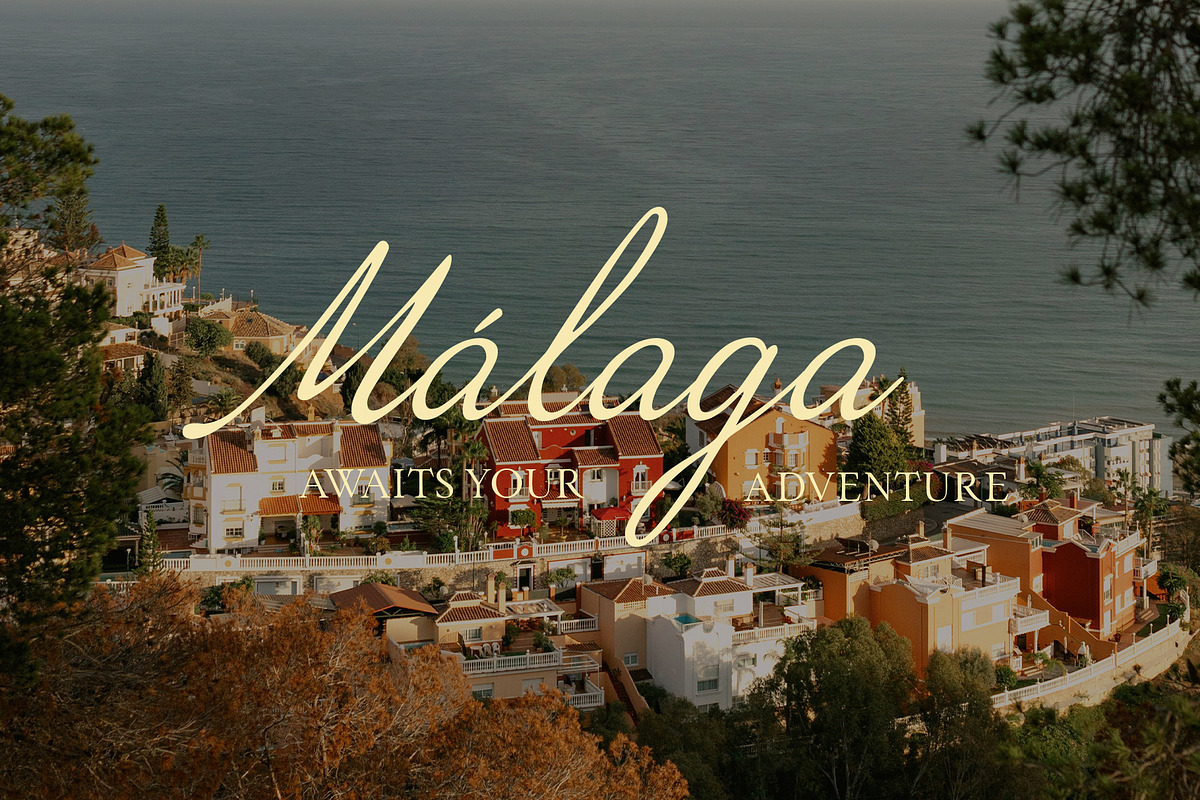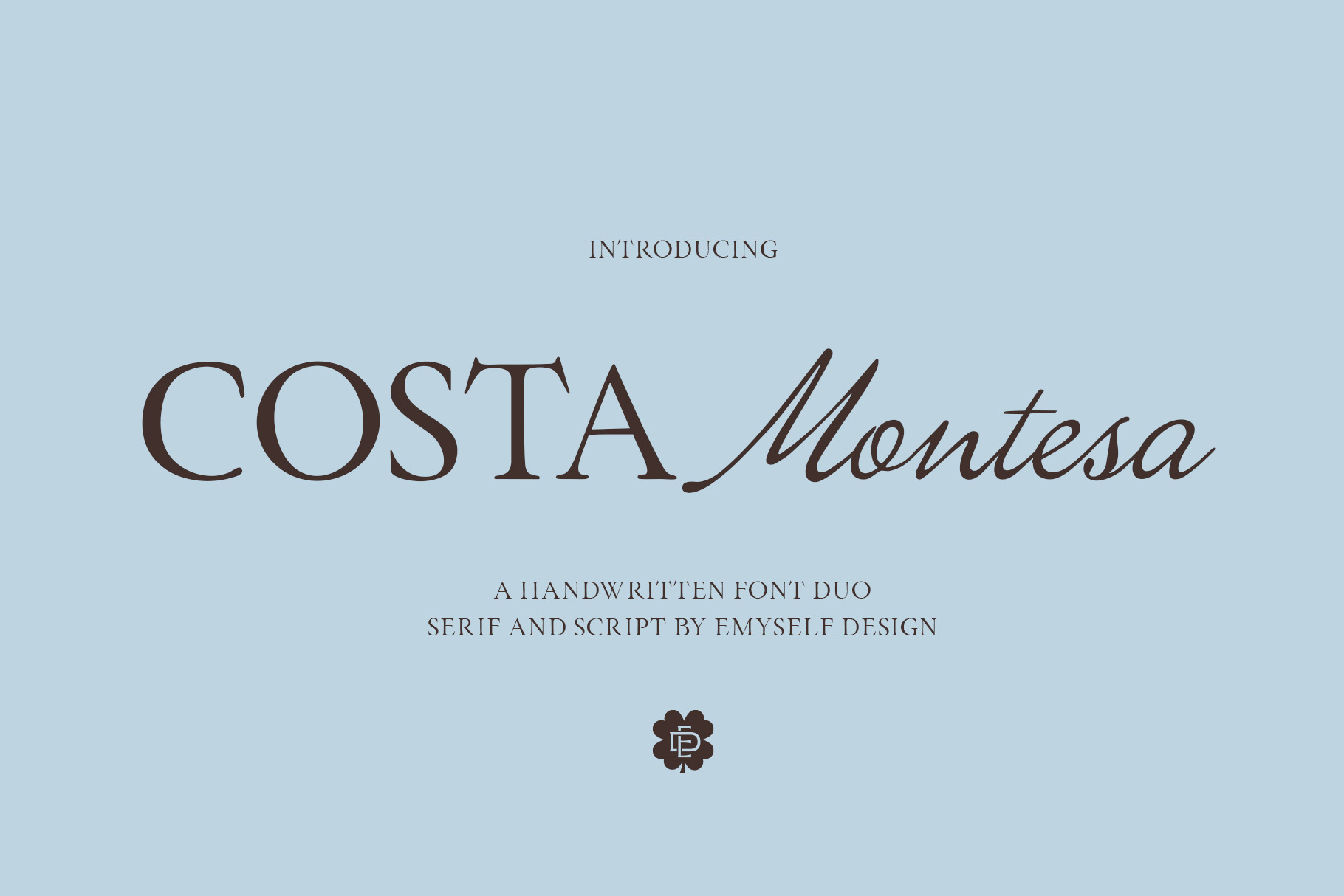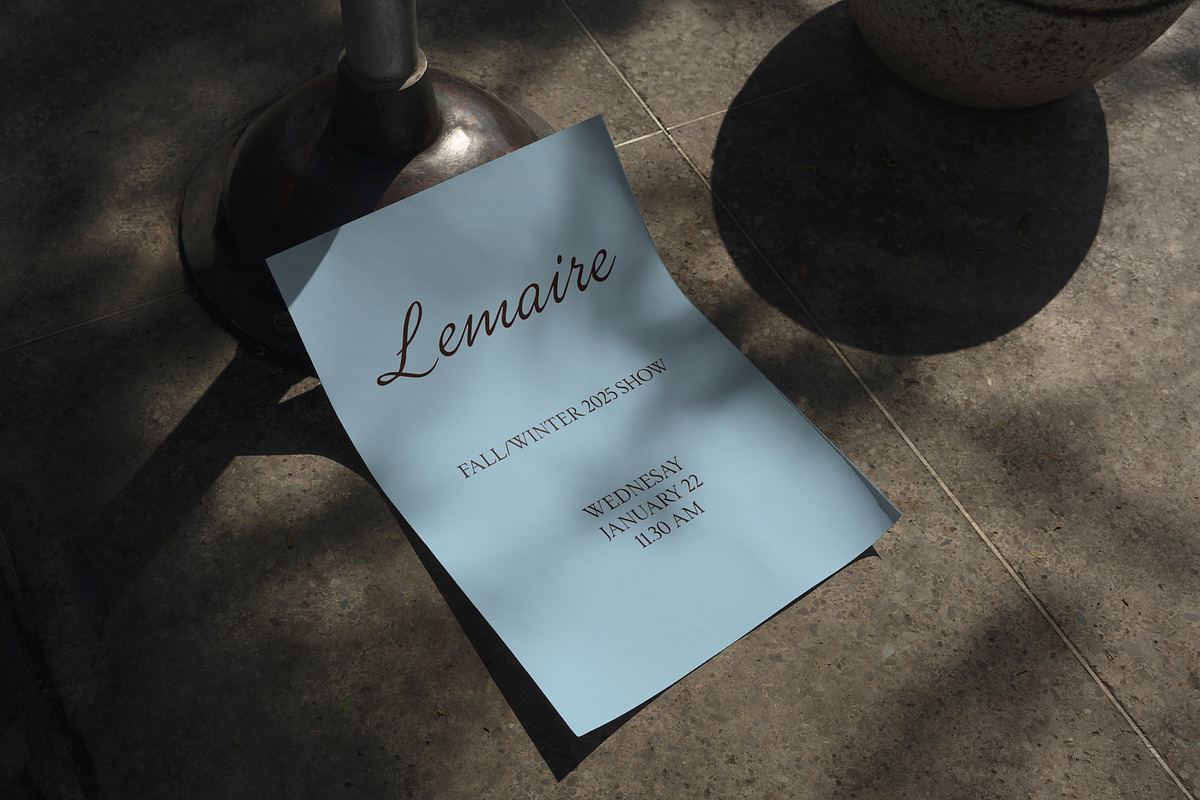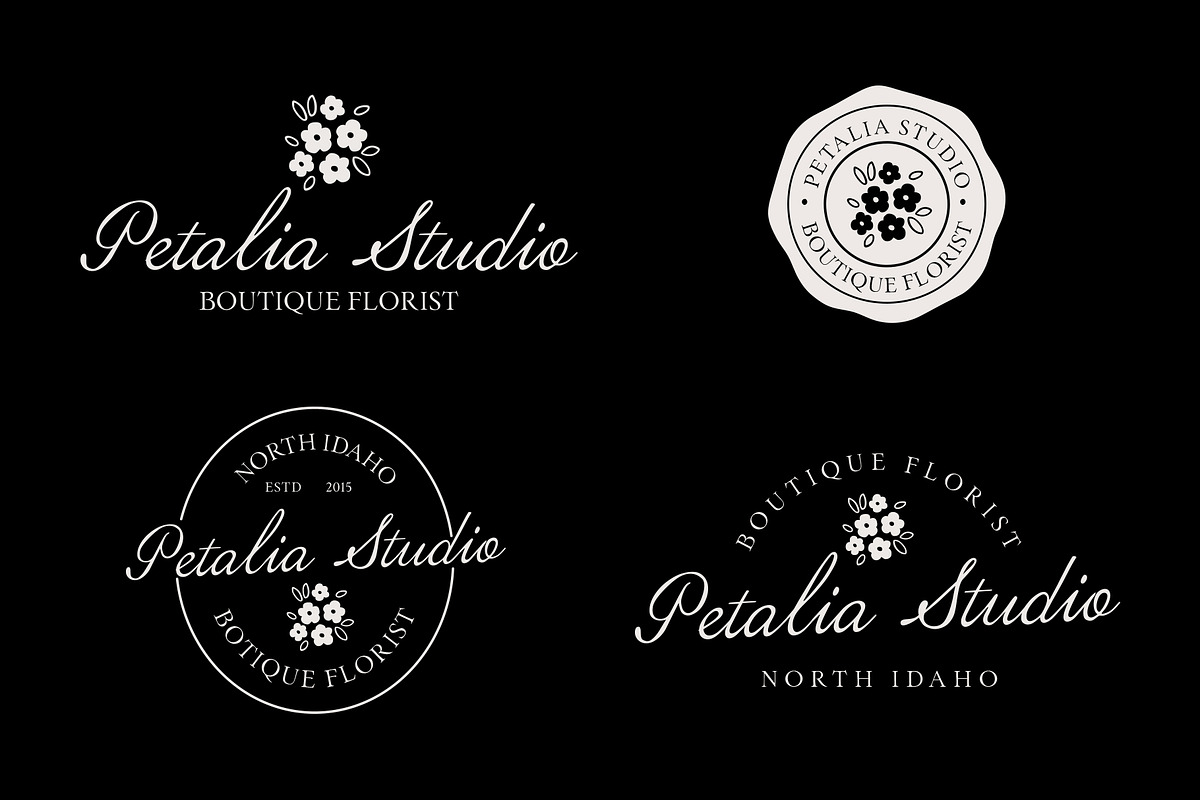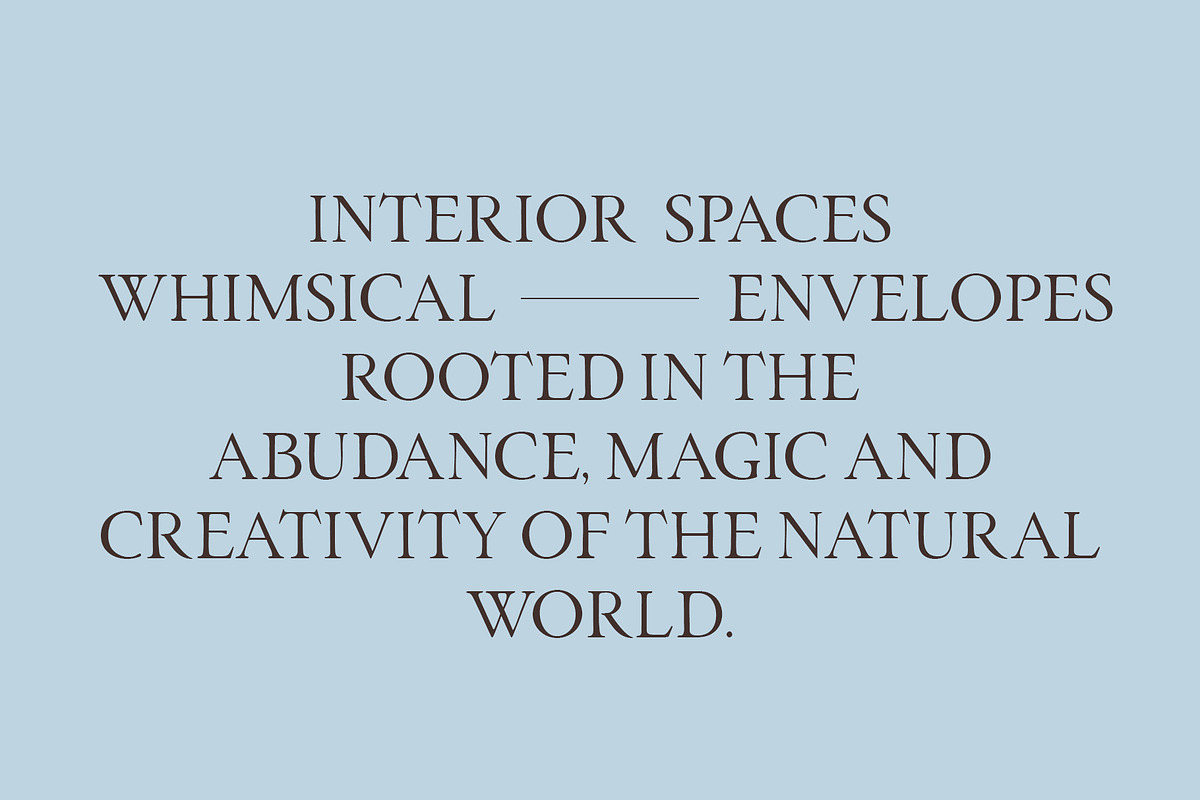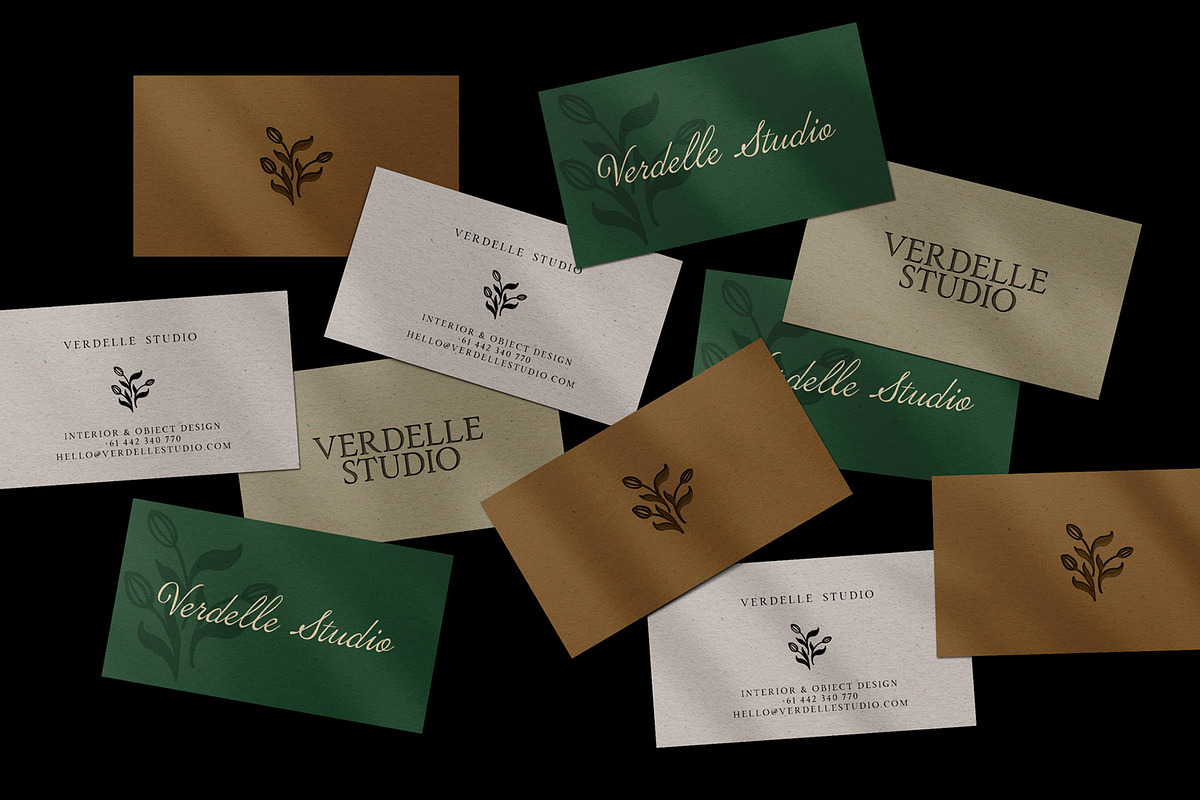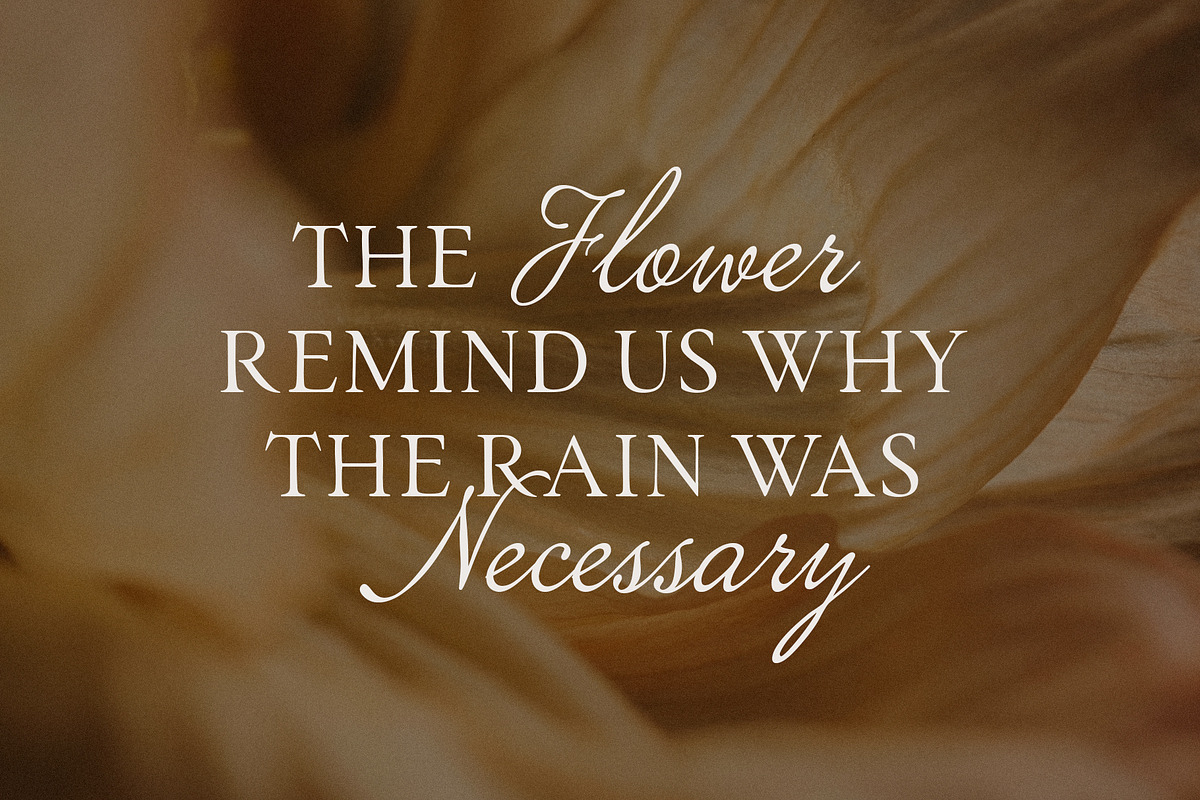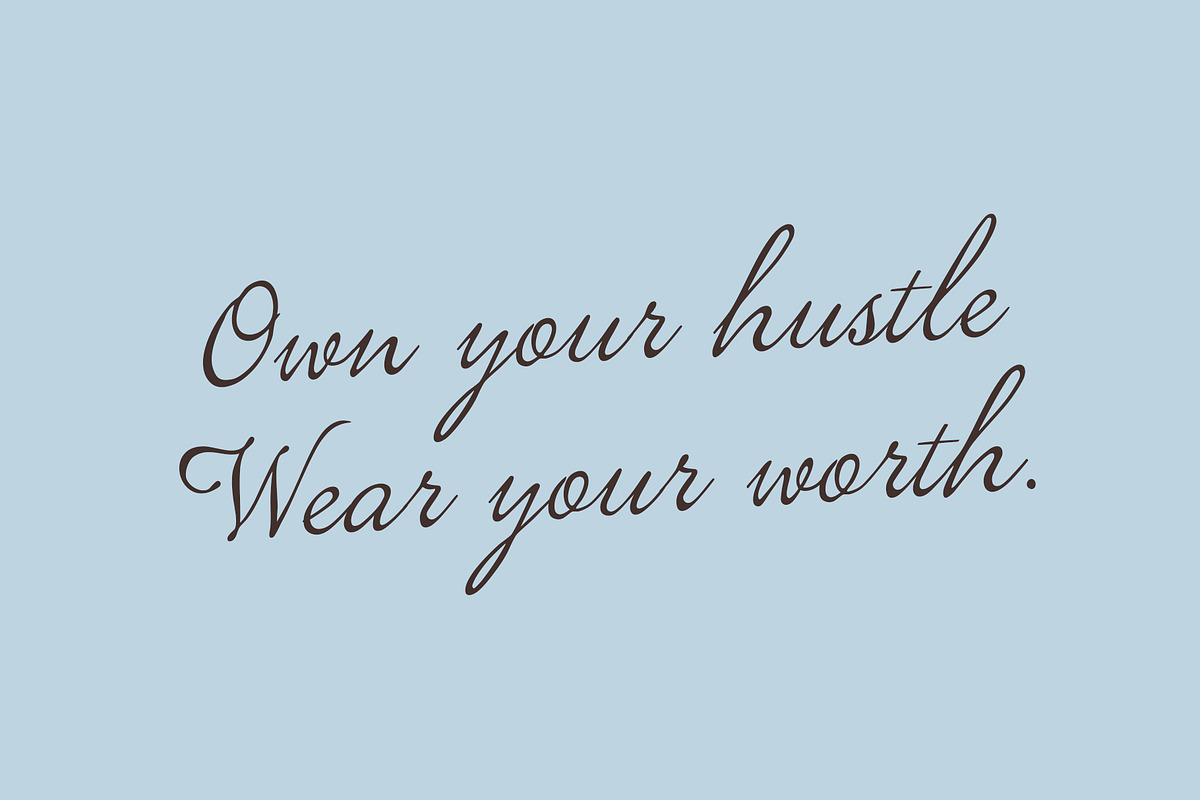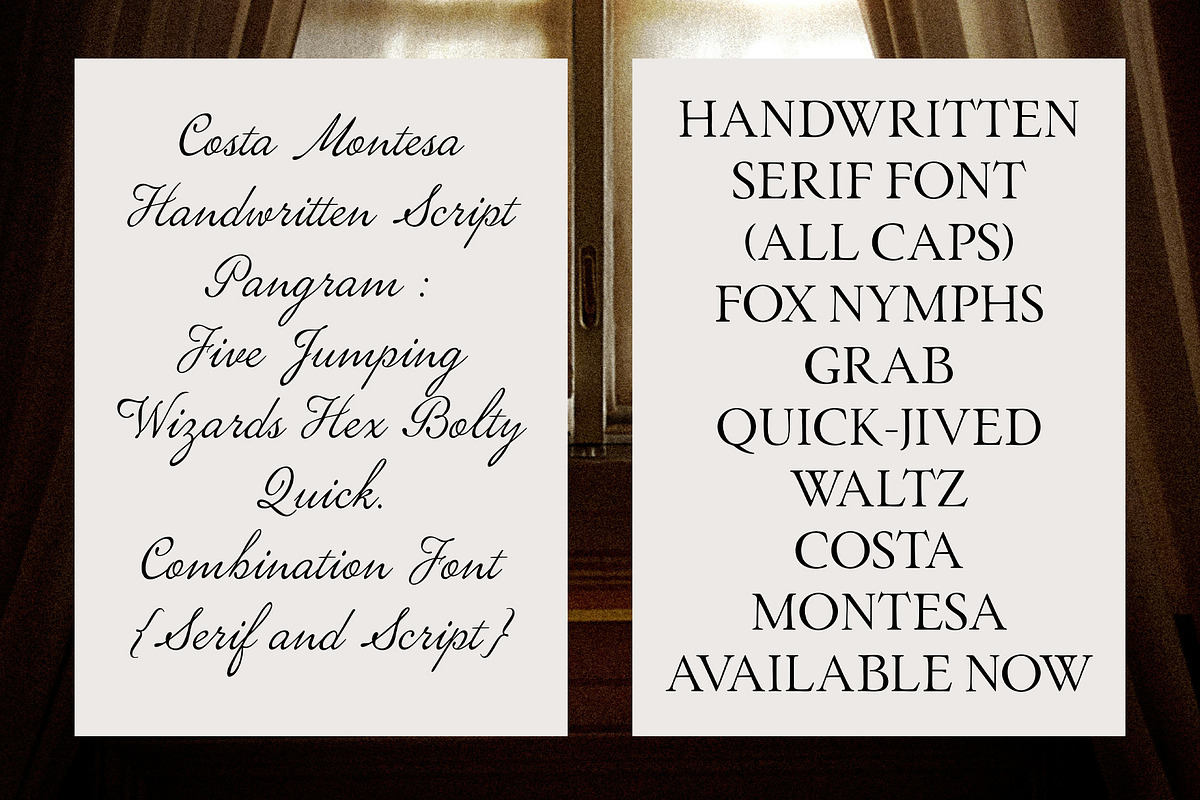
ED Costa Montesa - Handwritten Font
ED Costa Montesa is a beautiful serif and handwritten script font duo designed to bring elegance and personality to your typography.
This font combines a refined ALL CAPS serif with a smooth handwritten script, creating a stunning contrast between classic sophistication and natural handwriting charm. The serif style gives your design a strong, timeless editorial look, while the script adds a soft, personal touch that feels effortless and stylish.
Whether used together or separately, ED Costa Montesa helps you create eye-catching typography with a luxurious and modern feel.
Perfect for designers who want to add a romantic, classy, and stylish atmosphere to their projects.
- Logo & branding
- Wedding invitations
- Social media graphics
- Packaging design
- Editorial layouts
- Luxury branding
- Quotes and typography posters
With its elegant serif structure and expressive handwritten script, ED Costa Montesa is a versatile font duo that will elevate your design and make your typography stand out beautifully.